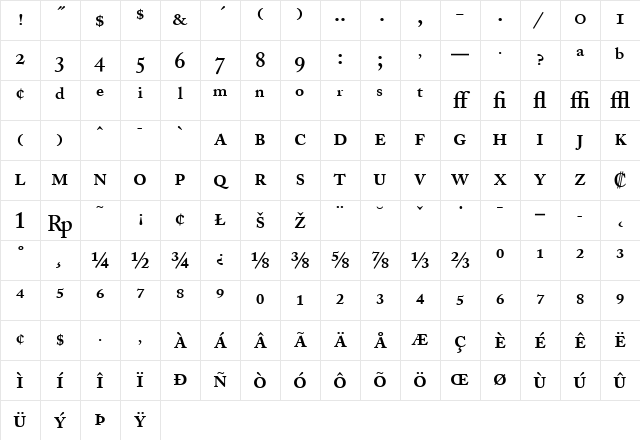
AdobeCaslonExpert-SemiBold Semi Bold
Design Context for AdobeCaslonExpert-SemiBold
AdobeCaslonExpert-SemiBold is a composed and adaptable typeface that performs quietly and consistently across a wide range of design contexts. Its bold stroke weight gives it real presence on the page.